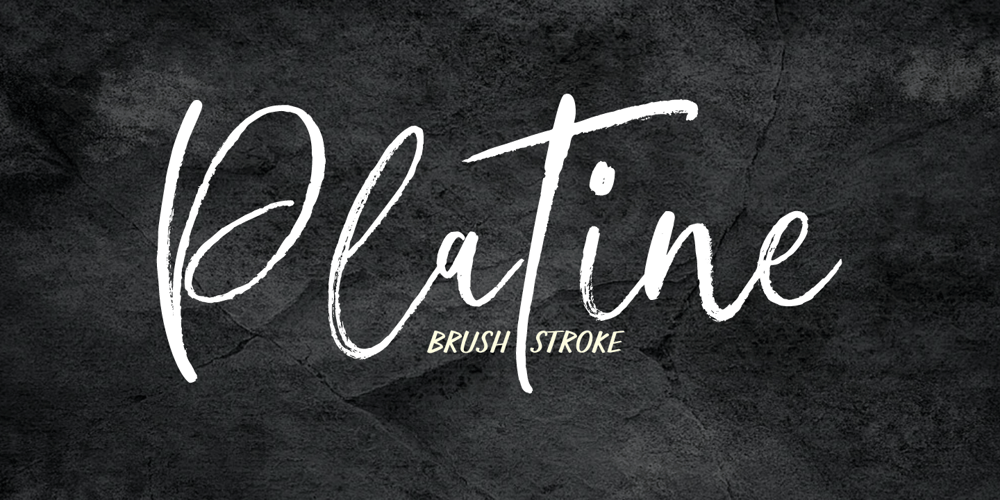
Platine Font Family was designed by khaidir and published by Gatype. Platine contains 1 styles and family package options. The Platine font is a brush-style typeface characterized by bold, natural brush strokes. Its letters have an organic shape with varying thickness, reminiscent of hand-painted calligraphy. This style gives a casual yet artistic feel, often used in designs that need a personal, creative, and bold touch, such as posters, greeting cards, or modern and edgy branding elements.